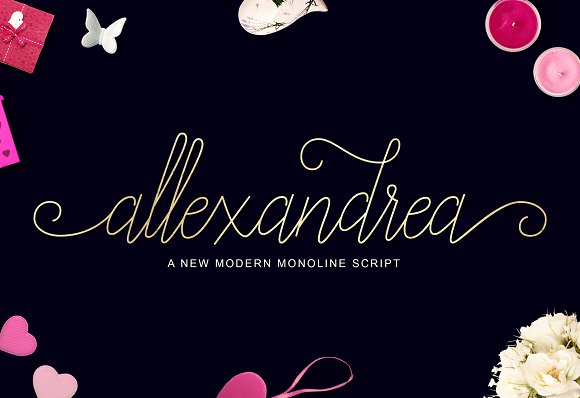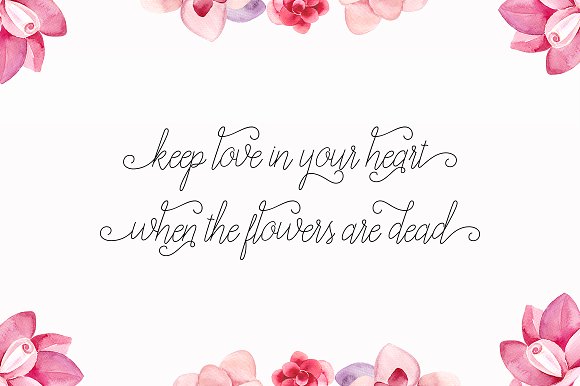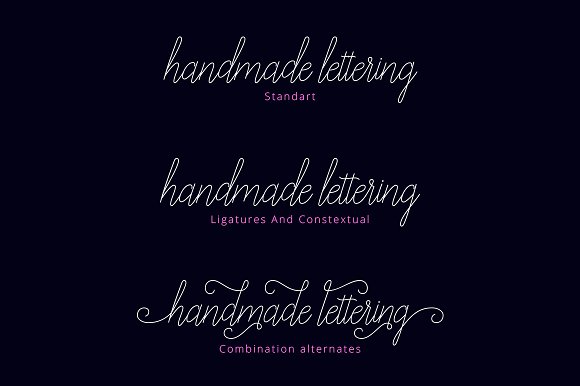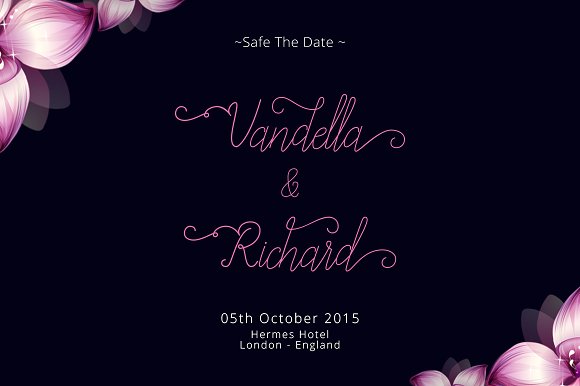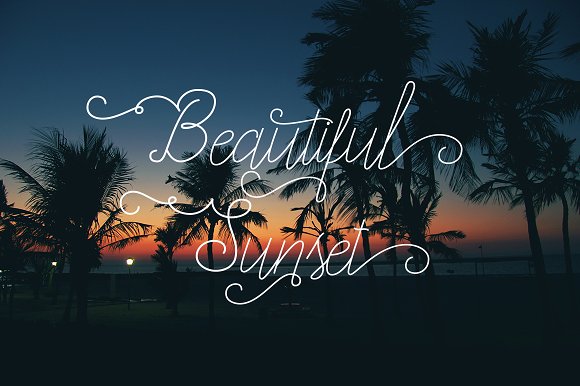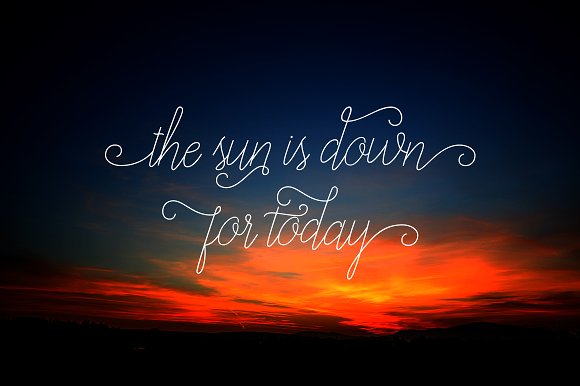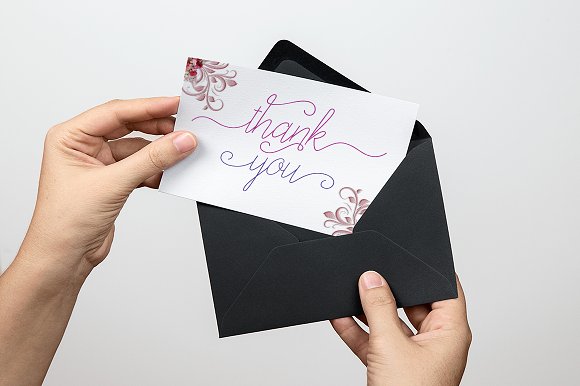
HomeScript FontsAllexandrea Font Script Fonts Allexandrea Font FacebookXPinterestWhatsApp Allexandrea Font Poster 2 Allexandrea Font Poster 3 Allexandrea Font Poster 4 Allexandrea Font Poster 5 Allexandrea Font Poster 6 Allexandrea Font Poster 7 About Allexandrea Font Allexandrea is a stunning monoline font with a irregular baseline, giving it a bouncy flow. DOWNLOAD ON CREATIVE FABRICAThis font is sold and delivered by Creative Fabrica. Font Canyon may earn a commission if you buy through this link. People also explored Monument Font Bank Professional Regular Font Peaceful Protest Moonstar Font Belostika Script Font Reedbuck Font Singletone Font Hesland Font Scripthome Font 292 0 TagsAllexandrea Font Previous articleBeloved FontNext articleLatasha Font LEAVE A REPLY Cancel reply Comment: Please enter your comment! Name:* Please enter your name here Email:* You have entered an incorrect email address! Please enter your email address here Website: Save my name, email, and website in this browser for the next time I comment. Personal Use Free Pinky Personal Use Free Read more about this font BD Spinner Personal Use Free Read more about this font Lumber Personal Use Free Read more about this font Zojihun Personal Use Free Read more about this font BLOG Transform Your Website: Elevate Your Typography with 7 Best Web Font Generators Are you ready to transform your website's typography from ordinary to extraordinary? Great! Today, we're diving into the world of web font generators, which... Top 10 Handwritten Fonts That Elevate Your Designs Modern Sans-Serif Fonts That Brands Love in 2025 Top 7 Google Fonts Alternatives for Faster and Privacy-Friendly Web Design (2025)